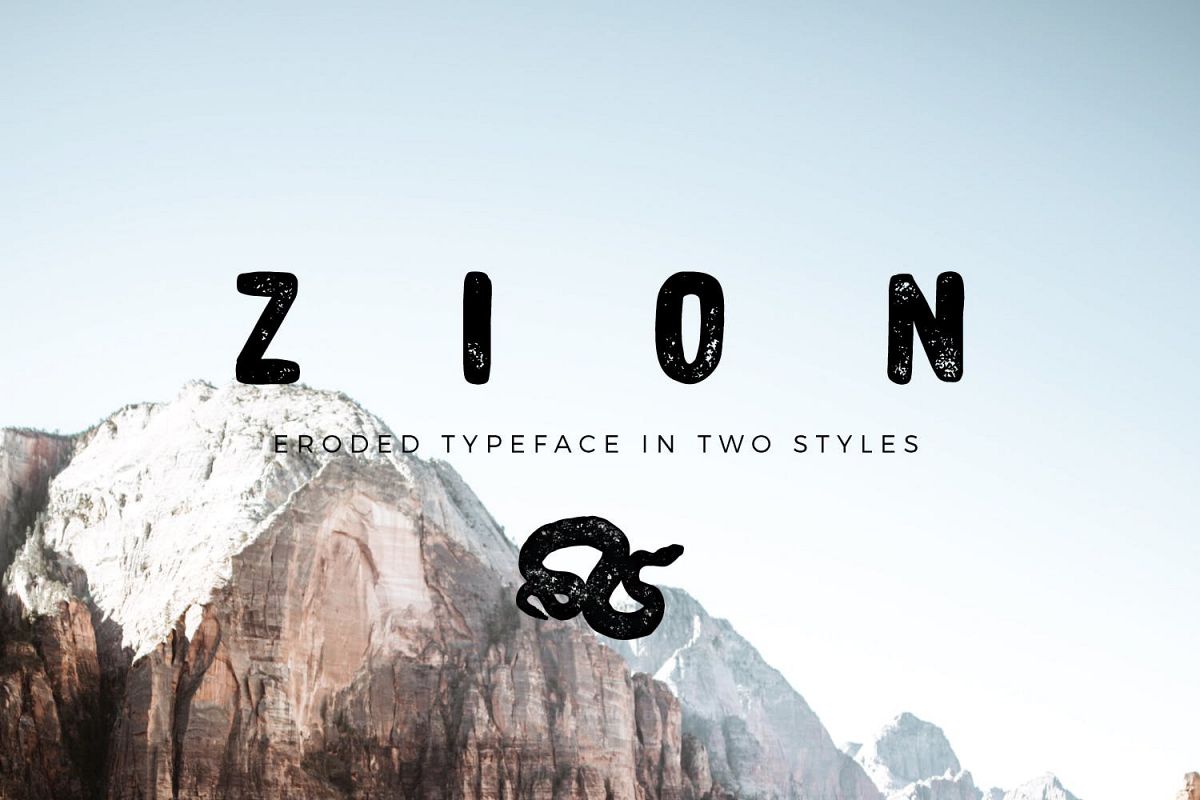
Zion | An Eroded Grunge Font
ZION A hand drawn display font inspired by one of the great National Parks of the USA.A little rough, a little organic, Zion font evokes the rocky red cliffs and dusty mesas of my personal favorite National Park, Zion.